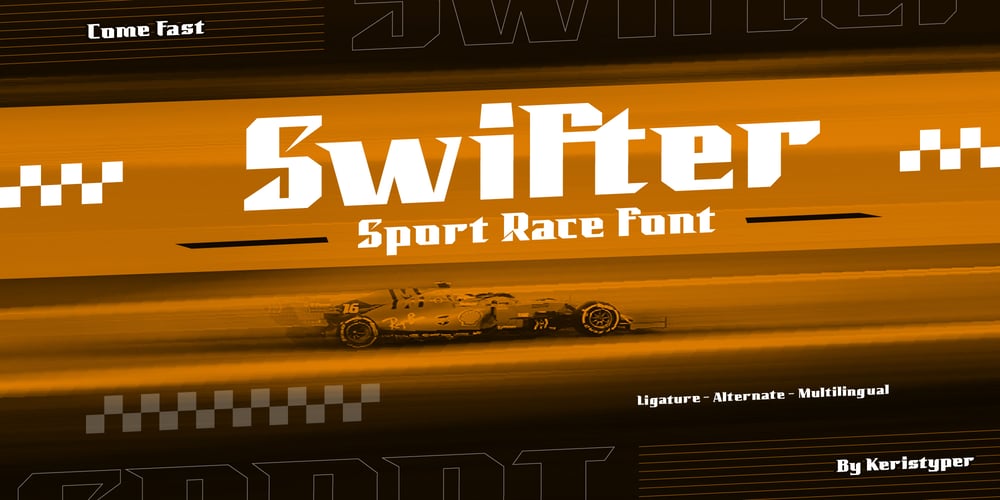
Swifter Font Family was designed by Tezar Tantular and published by Keristyper Studio. Swifter contains 1 styles and family package options. Introducing Swifter a racing display with strong sports nuances. This font is good for logo design, Social media, Movie Titles, Books Titles, short text even long text letters, and good for your secondary text font with sans or serif.**Featured:*** Standard Uppercase & Lowercase* Numeral & Punctuation* Multilingual : ä ö ü Ä Ö Ü ß ¿ ¡* Alternate & Ligature* PUA encodedWe recommend programs that support the OpenType feature and the Glyphs panel such as Adobe applications or Corel Draw. so you can use all the variations of the glyphs.Hope you enjoy our fonts!